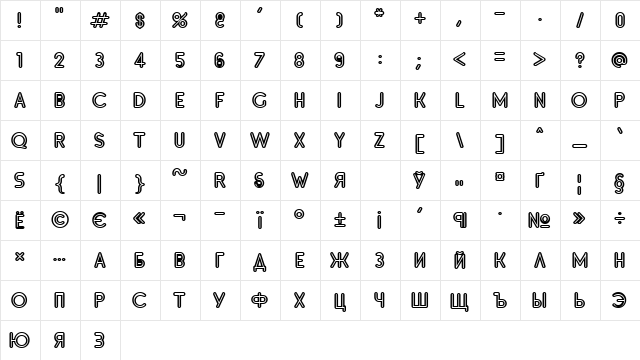
Inset5 Bold Font Preview
Inset5 Bold
Design Context for Inset5 Typeface
Inset5 offers clean, dependable letterforms without strong stylistic allegiance, making it a practical choice for designers who need flexibility. Its bold stroke weight gives it real presence on the page.